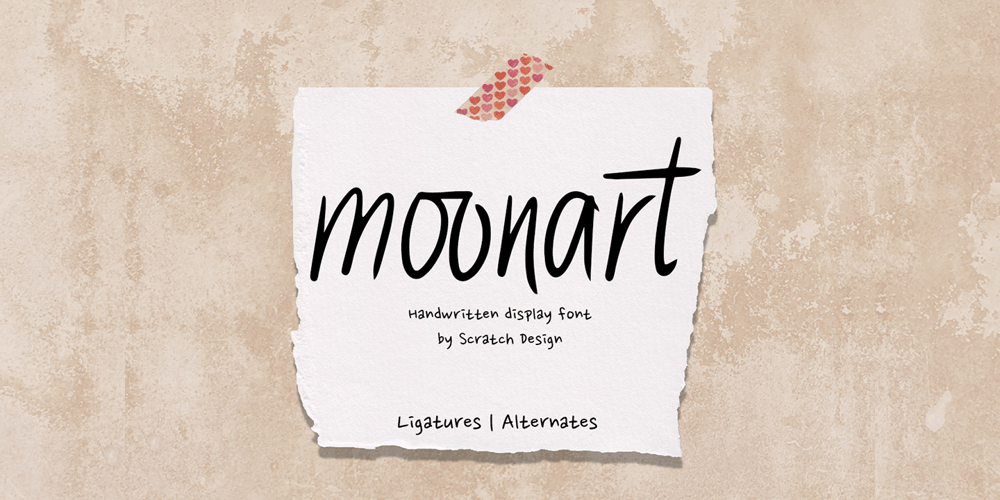
Moonart Font Family was designed by Gitayogi Irhandi and published by Scratch Design. Moonart contains 1 styles and family package options. Introducing “Moonart” It’s handwritten with natural and rough character. This font is suitable for designs that emphasize the authenticity of slightly rough writing. Perfect for creating Instagram quote posts, novel or book typefaces, branding, invitations, labels, packaging, stationery, etc. This is a full font, which features all uppercase and lowercase letters, numbers and punctuation, stylish alternates, multilingual, alternates and ligatures.Enjoy this font!